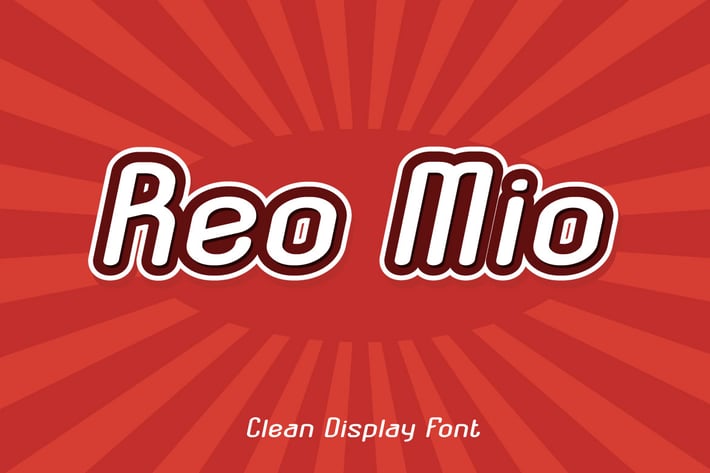
Reo Mio - Modern Display Font
Hello! Reo Mio is a modern display font.
Brink can be used in any works such as storybook, comic book, school, flyer, book title, advertisement, social media content, logo and many more.